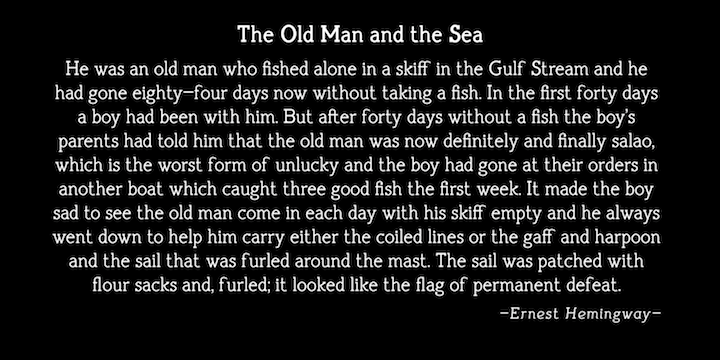
DOIT SLAB is a slab serif font family. This typeface has seven styles and was published by Pepe Tzintzun.
DOIT SLAB is a typeface based on social changes, on the human side and protagonist that society begins to show before a mechanical life that it was being forced to take; a typography that connotes force and life at the same time, decision and reason, which represents firm ideals.
It has six weights and a display version, as well as ligatures, old-style figures and italic numbers that give it its own authentic appearance, as well as thinking about its function. Ideal for texts and headlines in large scores; excellent choice in the publishing world.
Foundry | Pepe Tzintzun |